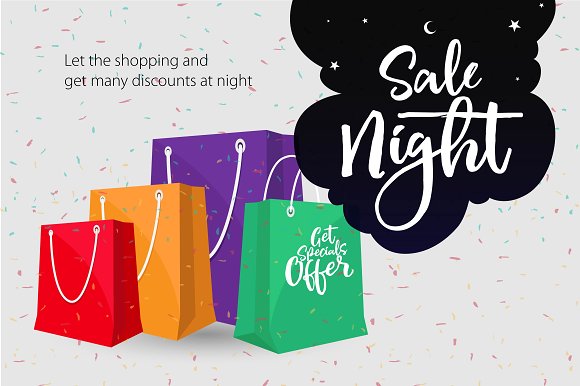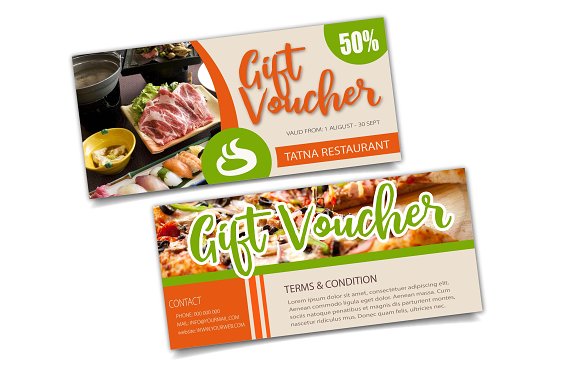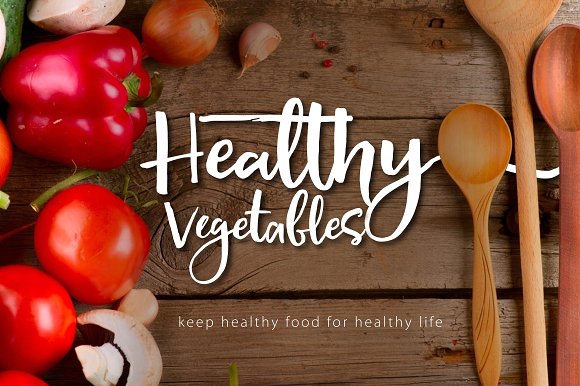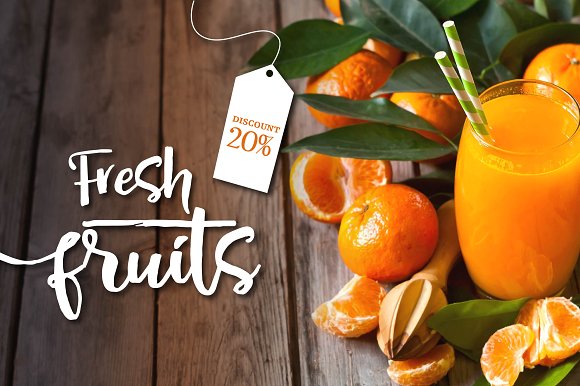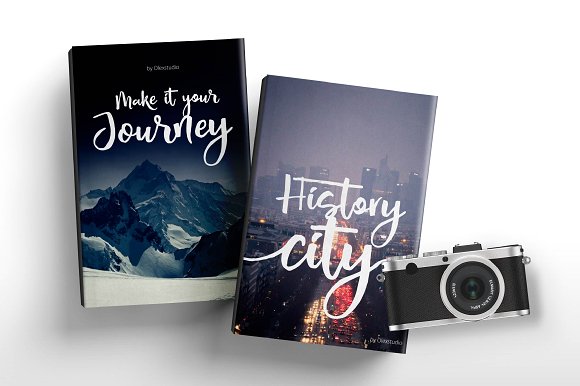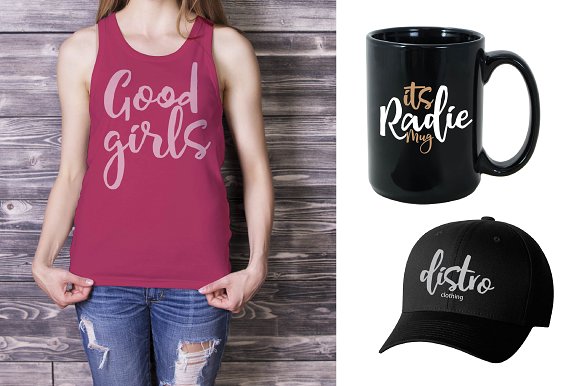
Introduction to Like Bandits Ink Font
Have you ever found yourself in a creative rut, searching for the perfect font to bring your vision to life? I know I have! That’s why I’m excited to share with you my discovery of the Like Bandits Ink Font – a stunning, handwritten script that’s perfect for a wide range of projects.
This beautiful font is a game-changer for designers, offering a high-quality, professional look that’s easy to read and works seamlessly with transparent backgrounds. Whether you’re working on a marketing campaign, branding project, or craft project, Like Bandits Ink Font is an invaluable design resource that’s sure to elevate your work.
Key Features of Like Bandits Ink Font
• High-quality, hand-drawn design with a unique, artistic feel, perfect for creative projects.
• Includes a range of weights and styles, from light to bold, to suit the needs of any creative project.
• Perfect for use in graphic design, digital art, and other creative projects where a unique, high-quality font is desired.
Honest Review: Like Bandits Ink Font
I recently had the chance to work with the Like Bandits Ink Font, and I must say it’s been a game-changer for my creative projects. This high-quality font has been a valuable design resource for me, offering a unique and stylish look that elevates my designs to the next level.
One of the things I love about this font is its versatility. It’s perfect for use on a transparent background, allowing the text to stand out and grab attention. Plus, it’s a free download, which is always a bonus for designers on a budget.
Here are some of the things that work well with the Like Bandits Ink Font:
• Unique and stylish design
• High-quality and crisp lines
• Perfect for use on transparent backgrounds
That being said, there are a few limitations to be aware of:
• Only available in a limited range of weights and styles
• May not be suitable for use in body text due to its decorative nature
Overall, I’m really impressed with the Like Bandits Ink Font. It’s a valuable addition to any designer’s toolkit, and I’ve been using it consistently in my creative projects. With its unique design and high-quality look, it’s sure to elevate your designs and help you stand out in the crowd.
Tips for Getting the Most Out of Like Bandits Ink Font
Use the Like Bandits Ink Font on a transparent background to create a unique and eye-catching design. Experiment with different font sizes and styles to add depth and interest to your design. Consider pairing the font with other design elements, such as graphics or images, to create a cohesive and engaging visual identity.
The Like Bandits Ink Font is perfect for a variety of creative projects, including logos, business cards, posters, and social media graphics. It’s also a great choice for designers who want to add a touch of sophistication and elegance to their designs.